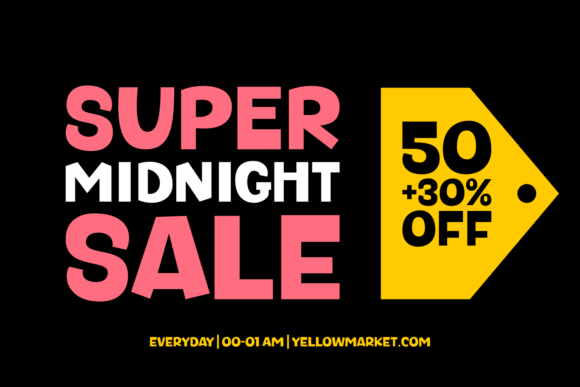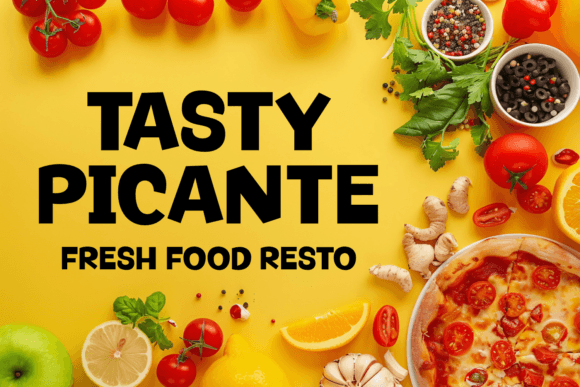
Introducing Extra Strong: The Ultimate Super Cartoon Font
Are you looking for a font that bursts with energy and playfulness? Look no further than Extra Strong, a super cartoon font that’s sure to add a touch of excitement and adventure to any design project. With its bold lines, dynamic curves, and larger-than-life appearance, Extra Strong is the perfect choice for designers and crafters who want to create engaging and entertaining content.
The Characteristics of Extra Strong
Extra Strong is a unique and eye-catching font that’s inspired by the world of comic books. Each letter is exaggerated in size and shape, featuring bold lines and dynamic curves that are reminiscent of comic book characters. The font exudes a sense of strength and vigor, making it perfect for conveying action, excitement, and adventure.
One of the key characteristics of Extra Strong is its larger-than-life appearance. The font is designed to command attention and add a touch of whimsy to any design project. Whether used for comic books, posters, logos, or children’s media, Extra Strong brings a sense of fun and dynamism to the forefront, making it an ideal choice for projects that aim to captivate and entertain audiences of all ages.
Extra Strong is a versatile font that’s perfect for designers and crafters who want to add a touch of personality to their work. The font is ideal for a wide range of projects, including:
- Comic books and graphic novels: Extra Strong is a natural fit for comic books and graphic novels, where bold and dynamic typography is essential for bringing characters and stories to life.
- Posters and flyers: The font’s larger-than-life appearance makes it perfect for posters and flyers that need to grab attention and convey a sense of excitement and energy.
- Logos and branding: Extra Strong can be used to create bold and memorable logos that stand out from the crowd and convey a sense of strength and vigor.
- Children’s media: The font’s playful and whimsical nature makes it perfect for children’s media, including books, games, and educational materials.
Why Choose Extra Strong?
So why choose Extra Strong over other fonts? Here are just a few reasons why designers and crafters love this super cartoon font:
- Unique and eye-catching: Extra Strong is a one-of-a-kind font that’s sure to grab attention and add a touch of personality to any design project.
- Versatile: The font is perfect for a wide range of projects, from comic books and posters to logos and children’s media.
- Easy to read: Despite its bold and dynamic appearance, Extra Strong is easy to read and understand, making it perfect for projects that require clear and concise communication.
- Fun and playful: The font’s playful and whimsical nature makes it perfect for projects that aim to entertain and engage audiences of all ages.
Tips for Using Extra Strong
Here are a few tips for using Extra Strong in your design projects:
- Use it boldly: Extra Strong is a bold and dynamic font, so don’t be afraid to use it boldly and make a statement.
- Experiment with colors: The font looks great in a wide range of colors, so experiment with different hues and combinations to find the perfect look for your project.
- Pair it with other fonts: Extra Strong can be paired with other fonts to create a unique and eye-catching look. Try pairing it with a sans-serif font for a bold and modern look.
Extra Strong is a super cartoon font that’s perfect for designers and crafters who want to add a touch of energy and playfulness to their work. With its bold lines, dynamic curves, and larger-than-life appearance, Extra Strong is sure to grab attention and convey a sense of strength and vigor. Whether used for comic books, posters, logos, or children’s media, this font brings a sense of fun and dynamism to the forefront, making it an ideal choice for projects that aim to captivate and entertain audiences of all ages.